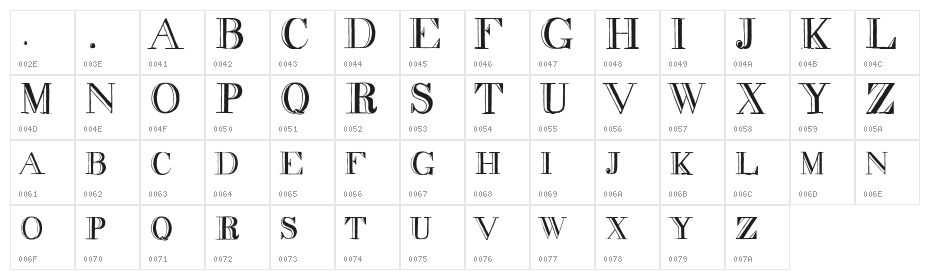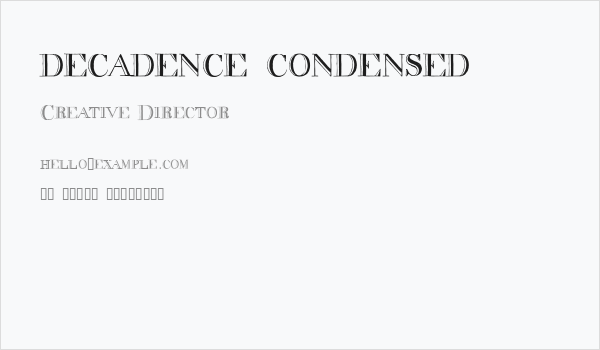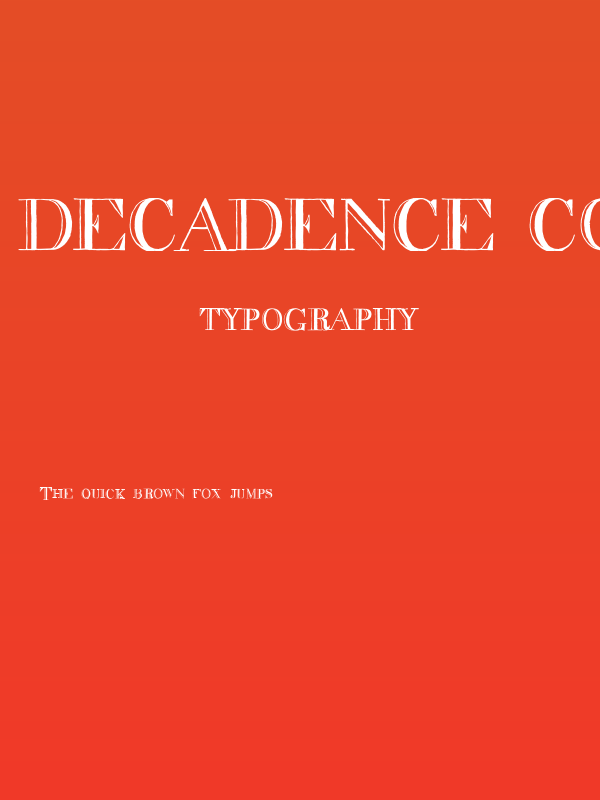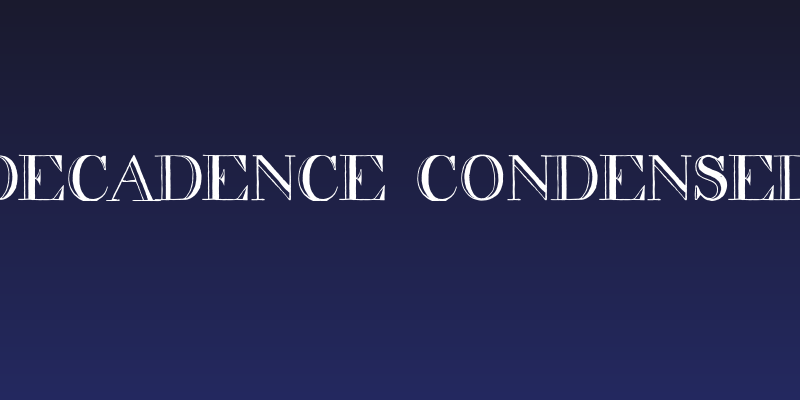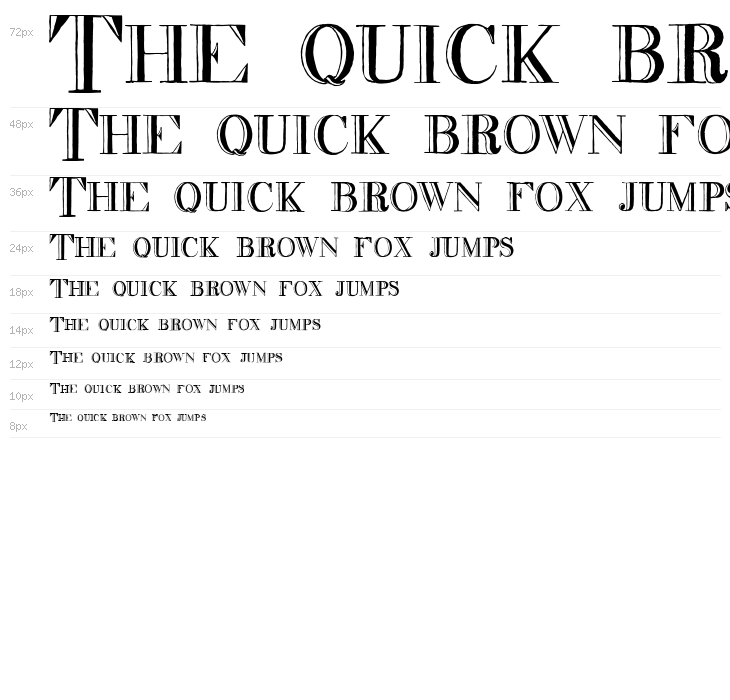
decadence condensed Font
decadence condensed Description
This font features a unique blend of classic serif elements with a modern twist. The letters are characterized by their condensed form and high contrast between thick and thin strokes, giving them a dramatic and elegant appearance. The serifs are sharp and pronounced, adding a touch of sophistication. The overall design is reminiscent of vintage typography, yet it maintains a contemporary feel. This font is ideal for creating striking headlines and titles, where its distinctive style can be fully appreciated. The spacing between characters is tight, which enhances its compact and bold look.
| Use Case | Headlines |
| Proposed Projects | Ideal for editorial design, luxury branding, fashion magazines, and elegant invitations. |